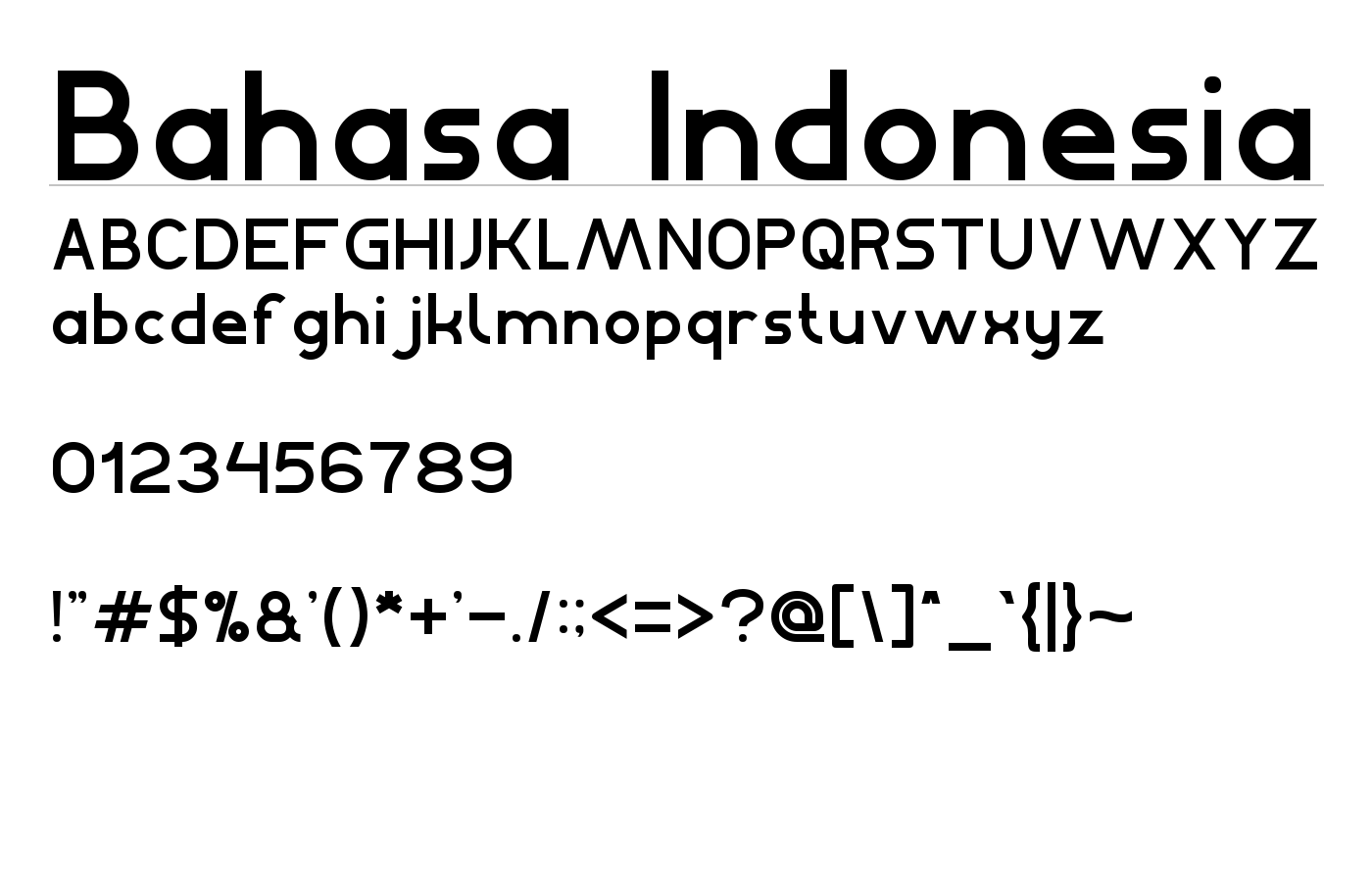
Bahasa Indonesia Font is a clean and modern sans-serif typeface characterized by its geometric shapes and balanced proportions. It features a medium weight with a slightly condensed width, smooth stroke endings, and a high x-height that enhances readability, making it ideal for contemporary branding, editorial design, and digital use. Its simple yet distinctive letterforms convey a friendly and professional tone, perfect for clear communication in both headlines and body text.
Bahasa Indonesia Font
About Bahasa Indonesia Font